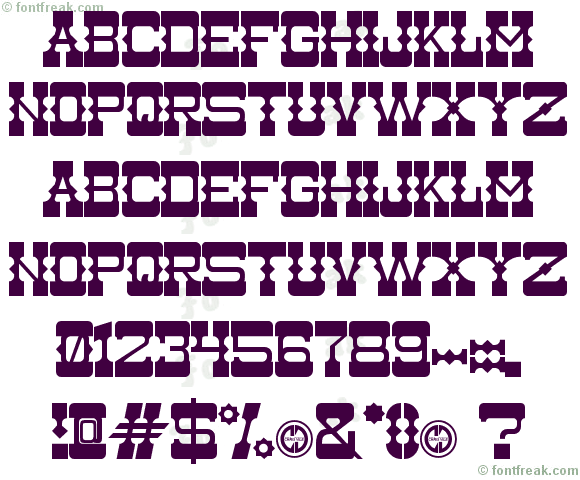
Medium Rare
Medium Rare is a striking display typeface designed by Chris Vile in 2018, characterized by its bold and unique visual style. This font falls under the decorative category, making it perfect for projects that require a strong visual impact. The design features a combination of thick and thin stroke weights, creating an intriguing contrast that draws the eye. The spacing is well-balanced, ensuring legibility while maintaining a playful and creative aesthetic. Decorative elements, such as the unconventional shapes of certain letters, add a layer of personality that distinguishes Medium Rare from more traditional fonts.
This versatile typeface is ideal for a variety of use cases. It shines in wedding invitations, where its bold character can enhance the celebratory theme. Movie posters also benefit from the font's eye-catching design, making titles stand out on the big screen. Restaurant menus can adopt Medium Rare to create an engaging atmosphere, especially for establishments looking to convey a sense of modernity and flair. Additionally, it works well for branding materials, allowing small business owners to make a memorable impression. Content creators seeking to elevate their digital projects will also find this font an excellent choice.
Targeted towards graphic designers, small business owners, and content creators, Medium Rare offers a free download option, allowing users to incorporate this distinctive typeface into their work without financial barriers. What sets Medium Rare apart is its ability to balance creativity with functionality, making it a standout choice for anyone looking to make a bold statement in their design projects. The combination of its unique aesthetic and free availability makes the Medium Rare font free download an opportunity not to be missed for design enthusiasts.